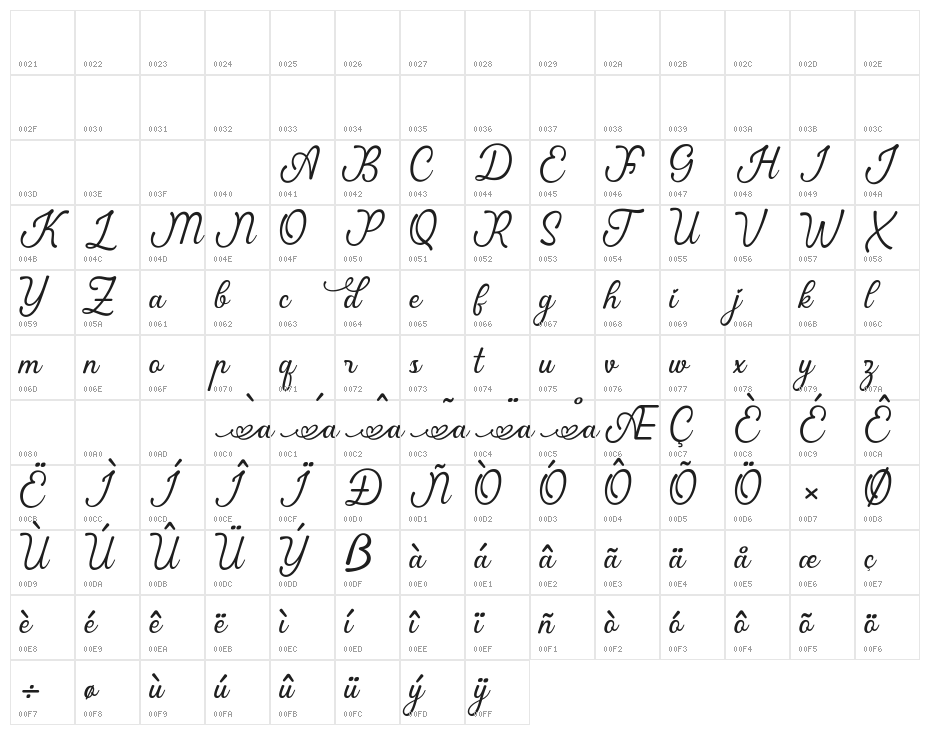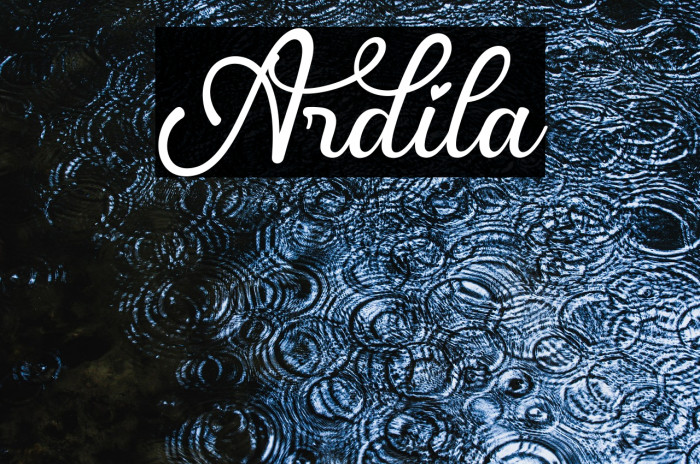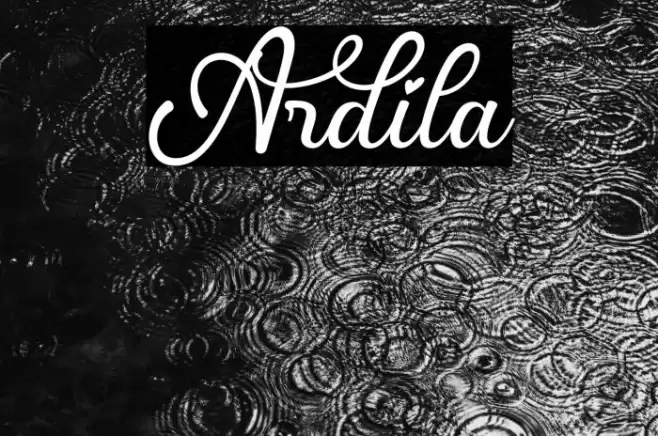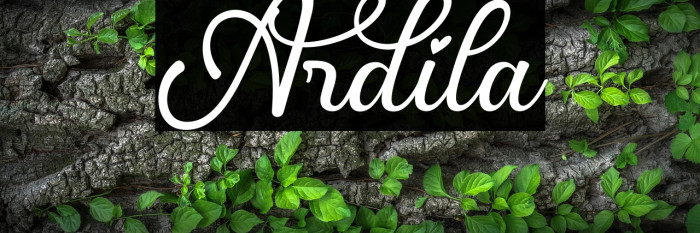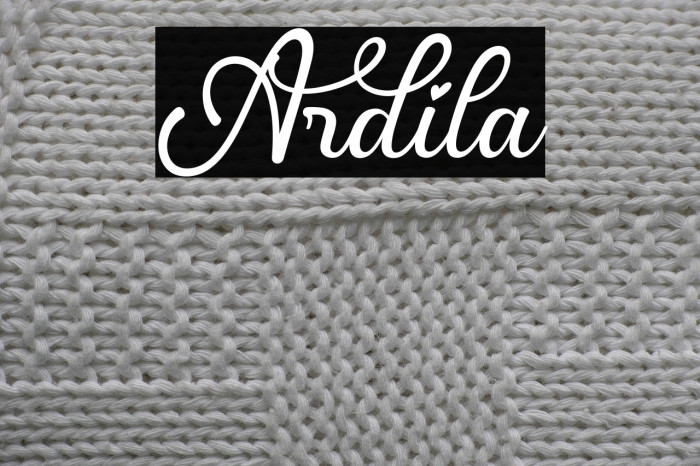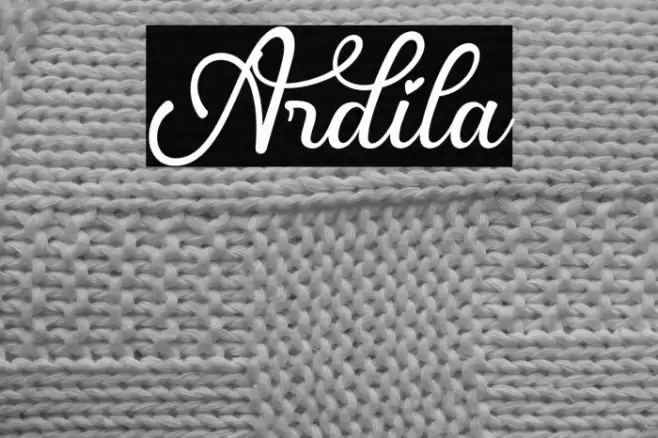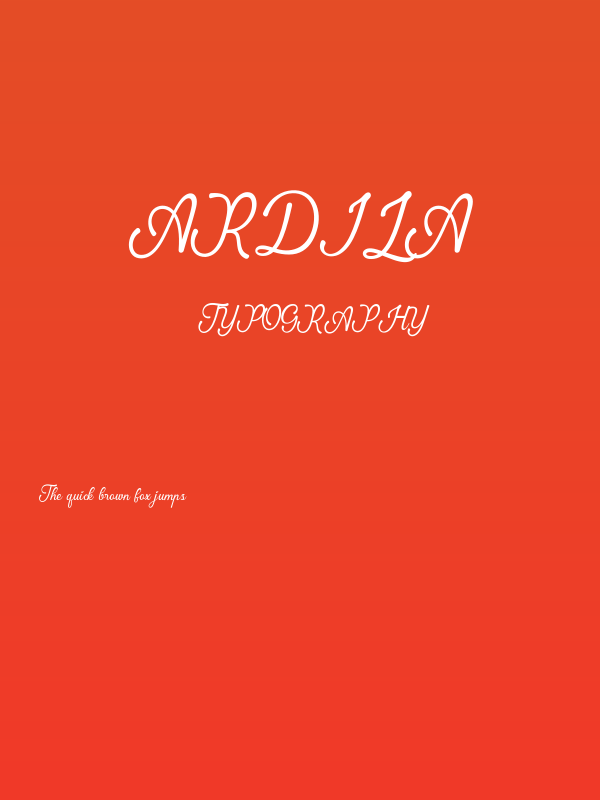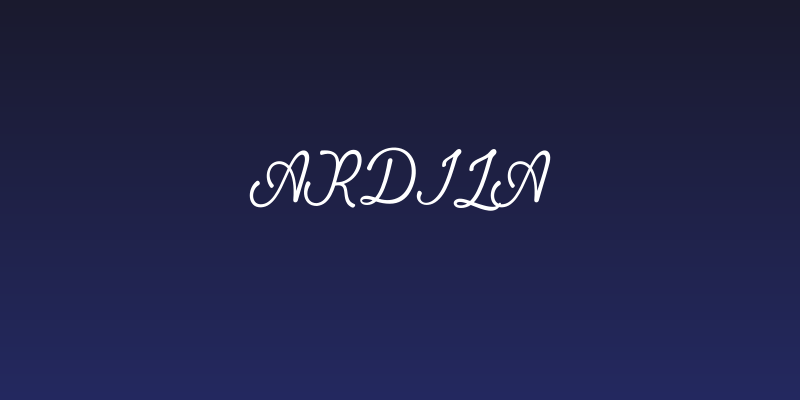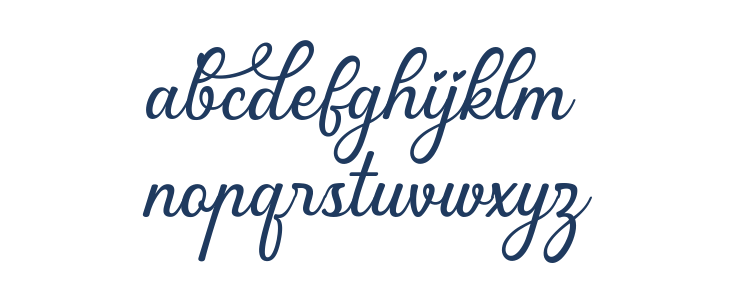
Ardila Font
Ardila Description
This font features an elegant and flowing script style, characterized by its smooth, cursive letters that connect seamlessly. The uppercase letters exhibit a graceful looped design, while the lowercase letters maintain a consistent fluidity, enhancing the overall aesthetic appeal. The font's strokes are moderately thick, providing a balanced contrast that ensures readability while maintaining its decorative charm. The style is reminiscent of classic calligraphy, making it suitable for projects that require a touch of sophistication and elegance.
| Use Case | Headlines, Invitations, Logos |
| Proposed Projects | Ideal for wedding invitations, elegant branding, greeting cards, and decorative headlines. |